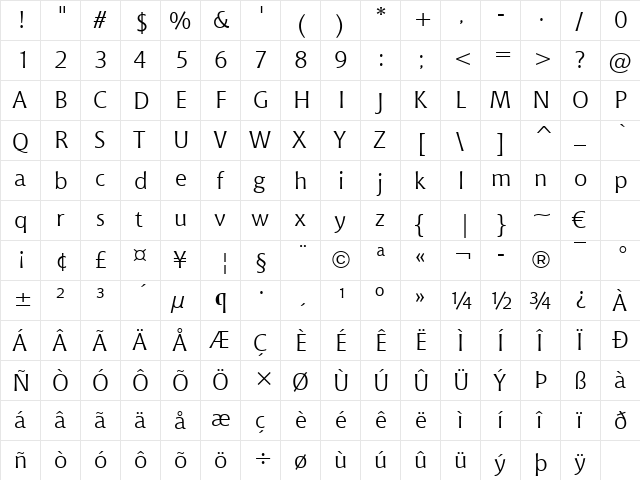
Chianti WGL4 BT Roman
Design Context for Chianti WGL4 BT Typeface
Chianti WGL4 BT is a composed and adaptable typeface that performs quietly and consistently across a wide range of design contexts.
Pro Tip: Use Chianti WGL4 BT in both headline and body roles to test its range before committing to a single application.